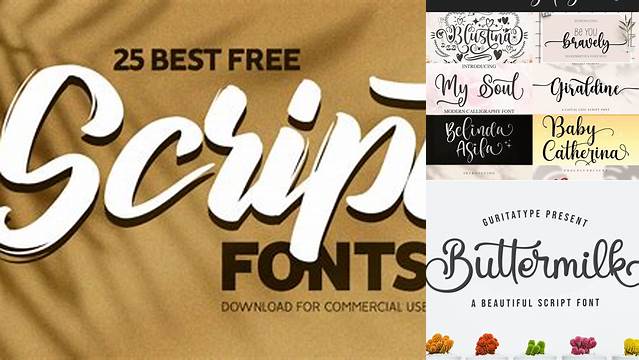
Hey guys! Are you looking for some awesome script fonts to spice up your designs? Well, you've come to the right place! In this article, we're diving deep into the world of free script fonts. We'll explore everything from where to find them, how to use them, and even some of the best ones out there. Let's get started!
1. What are Script Fonts?
Script fonts are designed to mimic the flowing handwriting of calligraphy or cursive styles. They bring a touch of elegance, personality, and warmth to any project. Unlike more structured fonts like Arial or Times New Roman, script fonts have a natural, handwritten feel. Think about wedding invitations, logos, and branding materials – that's where script fonts really shine. There are various sub-categories within script fonts, like formal scripts, casual scripts, and brush scripts, each offering a different vibe. Formal scripts often resemble traditional calligraphy and are perfect for sophisticated designs, while casual scripts are more relaxed and playful, ideal for friendly and approachable branding. Brush scripts, on the other hand, look like they were created with a paintbrush, adding a raw and artistic touch. The versatility of script fonts makes them a go-to choice for designers aiming to add a personal and stylish flair to their work.
Choosing the right free script font can make or break your design, so it's essential to understand the different types and their best uses. For instance, a formal script might be perfect for a high-end brand, but it could feel out of place on a children's book cover. Consider the overall tone and message of your design when selecting a script font. The right font will enhance your message and make your design stand out. Script fonts can convey different emotions and styles, from classic and elegant to modern and edgy. By exploring the diverse range of available script fonts, you can find the perfect match for your creative vision and elevate your designs to the next level. Don't be afraid to experiment and try out different options to see what works best for you.
2. Why Use Script Fonts?
Free script fonts can add a touch of elegance, personality, and warmth to your designs. They're perfect for projects where you want to convey a sense of craftsmanship or a personal touch. Imagine a beautifully designed logo with a flowing script font – it immediately feels more sophisticated and memorable. Or consider a greeting card with a handwritten-style script font that adds a personal and heartfelt touch. Script fonts are excellent for branding, invitations, and even website headers. They stand out from the crowd and can make your message more engaging and memorable. The unique characteristics of script fonts, such as their flowing lines and calligraphic appearance, can create a visually appealing and distinct look that sets your designs apart from the competition.
Beyond aesthetics, script fonts can also evoke specific emotions and associations. A formal script font might convey sophistication and luxury, while a more casual script font can create a friendly and approachable vibe. The choice of script font can significantly impact how your audience perceives your brand or message. For example, a wedding invitation featuring a delicate and ornate script font will likely evoke feelings of romance and elegance, while a poster for a coffee shop using a quirky and playful script font might create a more relaxed and inviting atmosphere. By carefully considering the emotional impact of different script fonts, you can ensure that your designs resonate with your target audience and effectively communicate your intended message. Don't underestimate the power of a well-chosen script font to elevate your design and create a lasting impression.
3. Where to Find Free Script Fonts
Another excellent resource for discovering free script fonts is through design communities and forums. Websites like Behance and Dribbble often feature designers who share their font creations for free. These fonts can be a bit more unique and less mainstream than those found on larger font repositories. Additionally, many independent font designers offer free demo versions of their fonts, which can be a great way to test out a font before committing to a purchase. Social media platforms like Instagram and Pinterest can also be valuable sources of inspiration and font discovery. By following design-related hashtags and accounts, you can stay updated on the latest font releases and freebies. Remember to always credit the font designer when using their free fonts, as it's a respectful way to acknowledge their work and support the design community.
4. Best Free Script Fonts for 2024
Let's talk about some of the best free script fonts available right now. "Pacifico" is a classic, flowing script that's perfect for adding a touch of retro charm. "Great Vibes" is an elegant and refined script that's ideal for wedding invitations and formal designs. For something more casual, check out "Kaushan Script," which has a playful and handwritten feel. "Lobster Two" is another great option with a bold and quirky style. These fonts are all available on Google Fonts, making them super easy to incorporate into your projects. When selecting a font, consider the overall aesthetic you're aiming for and how the font will complement your other design elements. Experiment with different fonts and see which ones resonate best with your creative vision.
"Dancing Script" is another fantastic free script font that offers a unique blend of elegance and playfulness. Its bouncy and irregular letterforms make it perfect for adding a touch of personality to your designs. "Brush Script MT" is a classic choice for a bold and dramatic handwritten look. Its thick, textured strokes create a sense of energy and movement, making it ideal for headlines and posters. For a more modern and minimalist script font, consider "Allura." Its clean lines and simple curves make it a versatile option for various design projects. Remember to consider the readability of the font when making your selection. While some script fonts are visually stunning, they may not be suitable for body text or smaller font sizes. Always test the font in different sizes and contexts to ensure that it remains legible and effective. By carefully evaluating the characteristics of each font, you can find the perfect script font to enhance your designs and achieve your desired aesthetic.
27. Expanded Script Fonts
For something more dramatic, find free script fonts that are wider and more spaced out.
28. Layered Script Fonts
Add depth and complexity with free script fonts that allow you to stack different styles for unique effects.
29. Animated Script Fonts
Bring your designs to life with free script fonts that have built-in animations for dynamic presentations.
30. DIY Script Fonts
For a totally unique touch, try creating your own free script fonts with online tools and tutorials. This will add a unique and personalized touch.